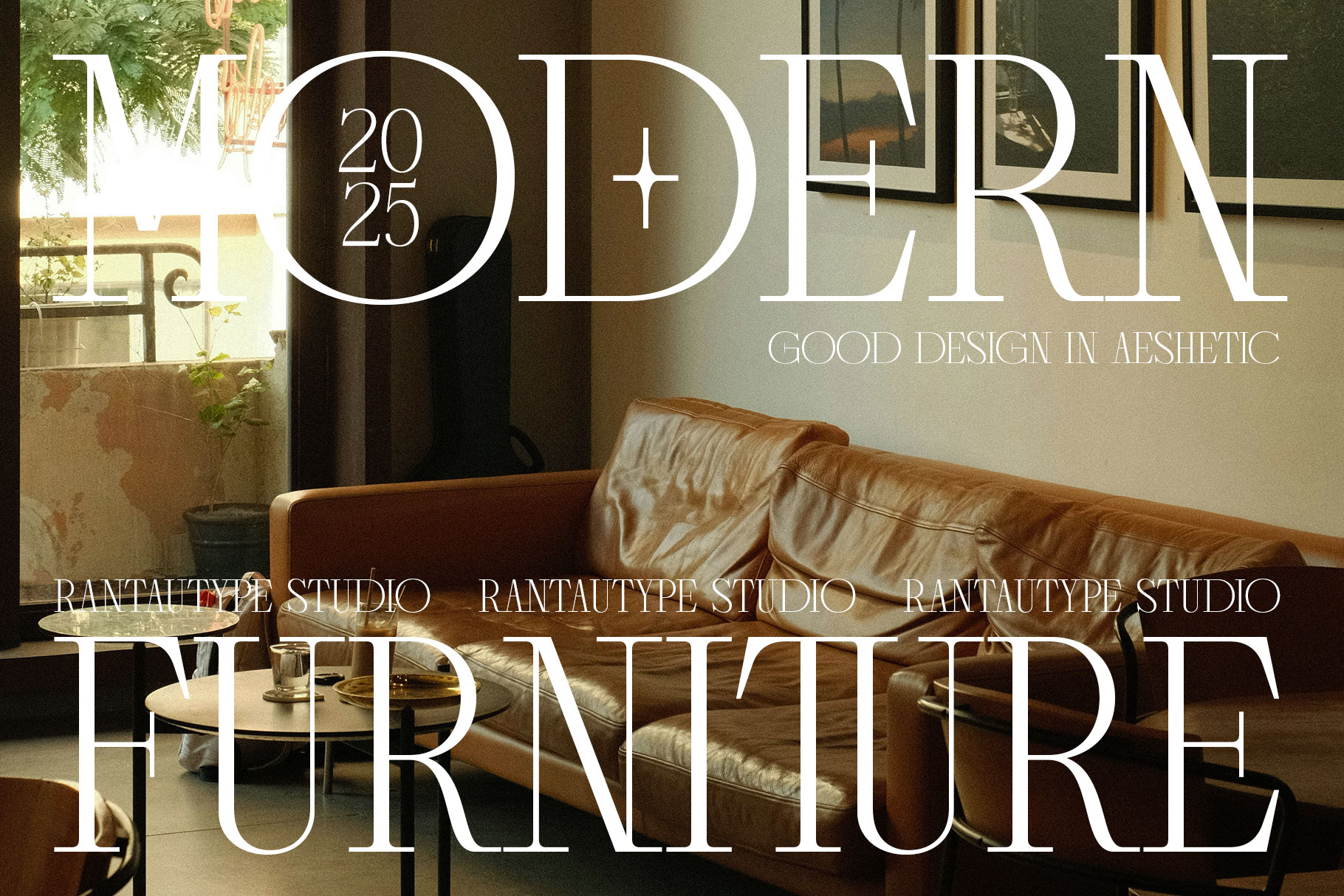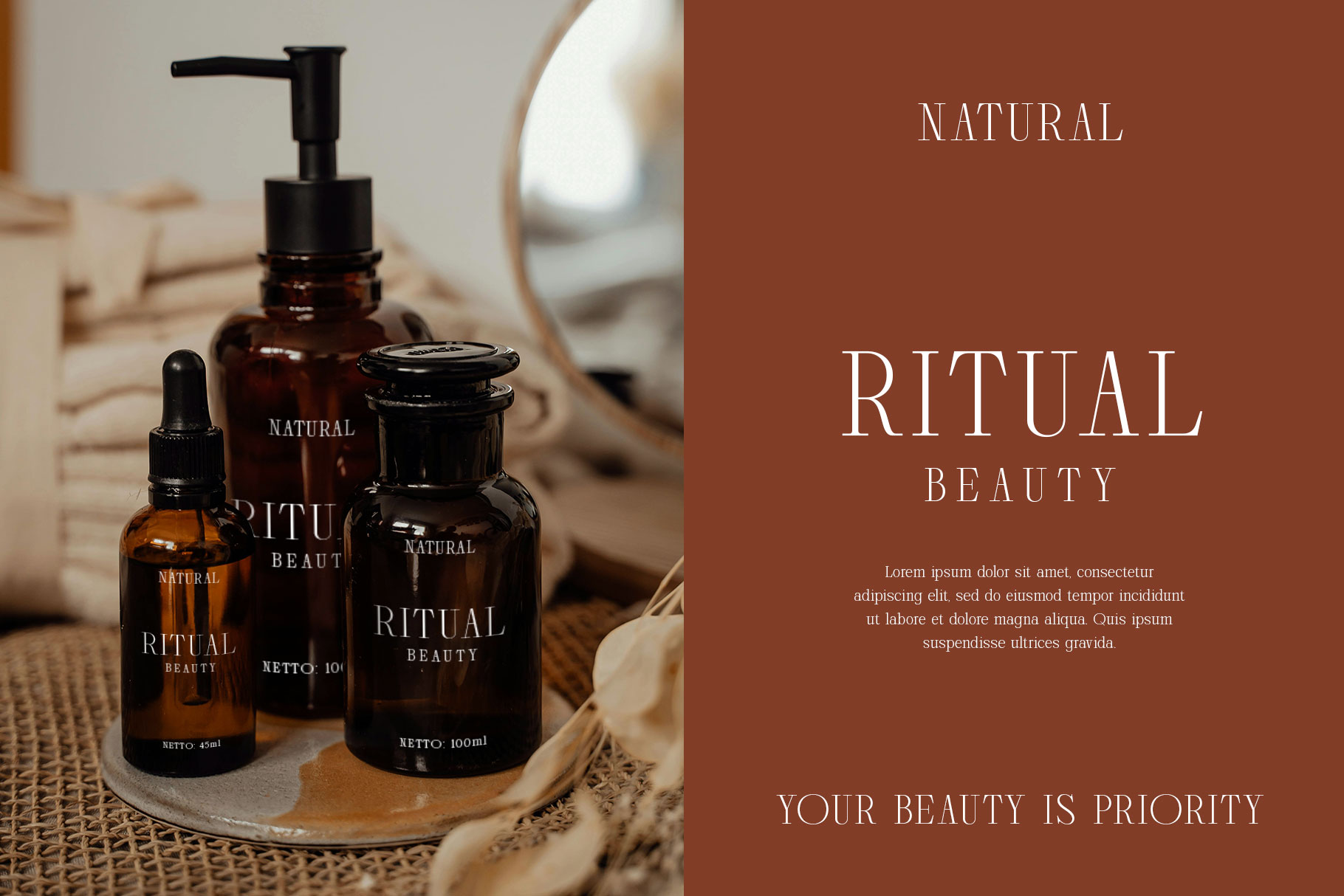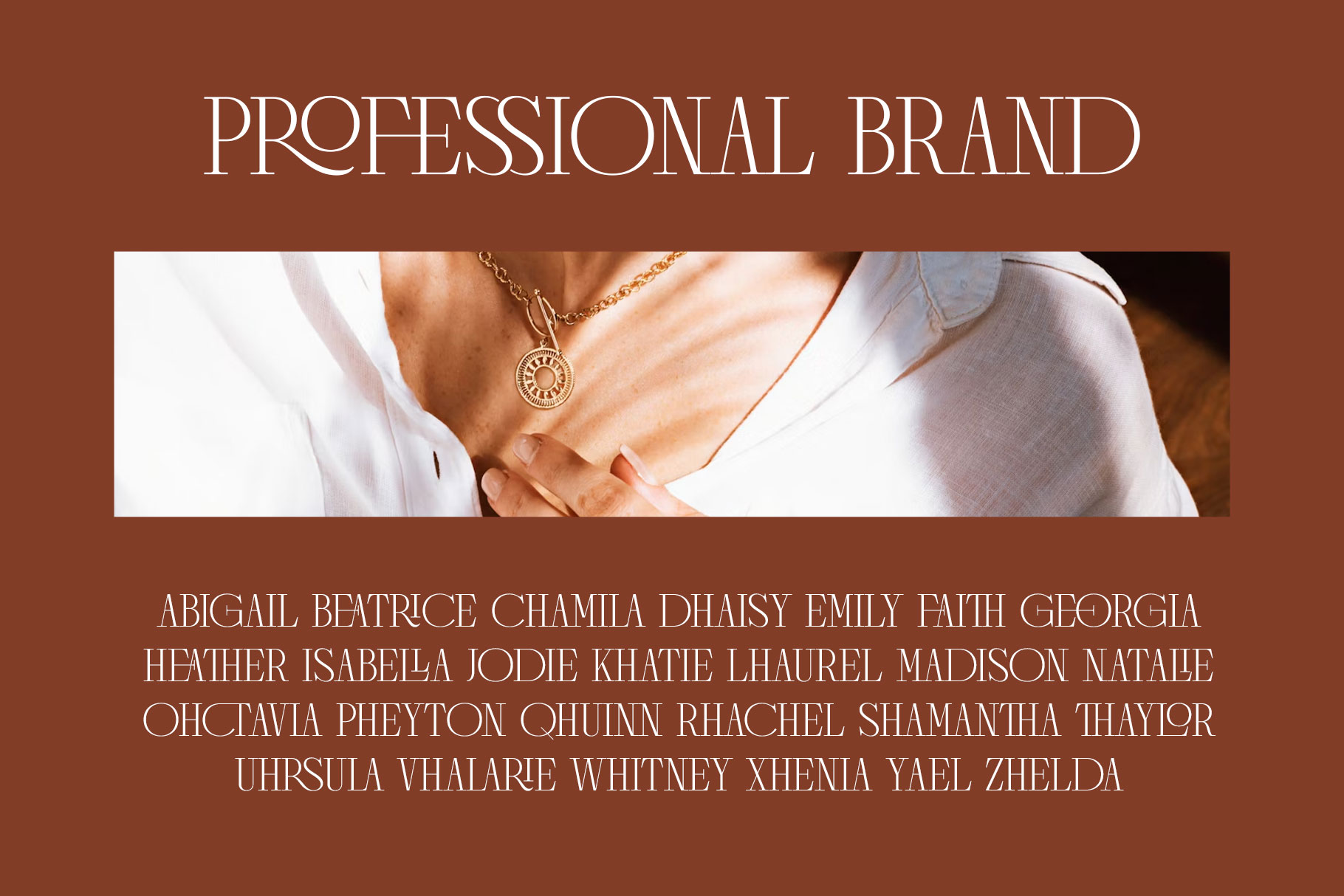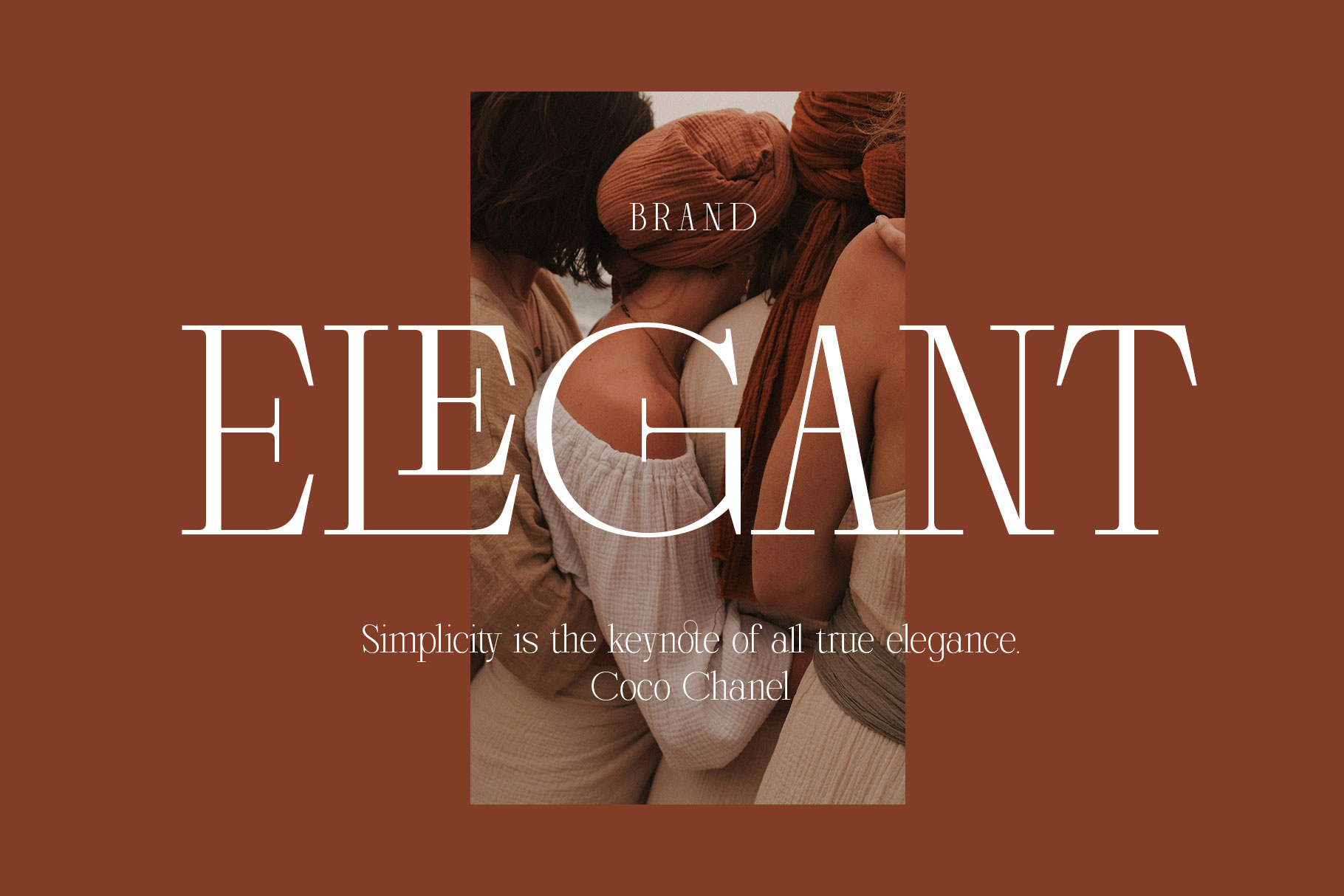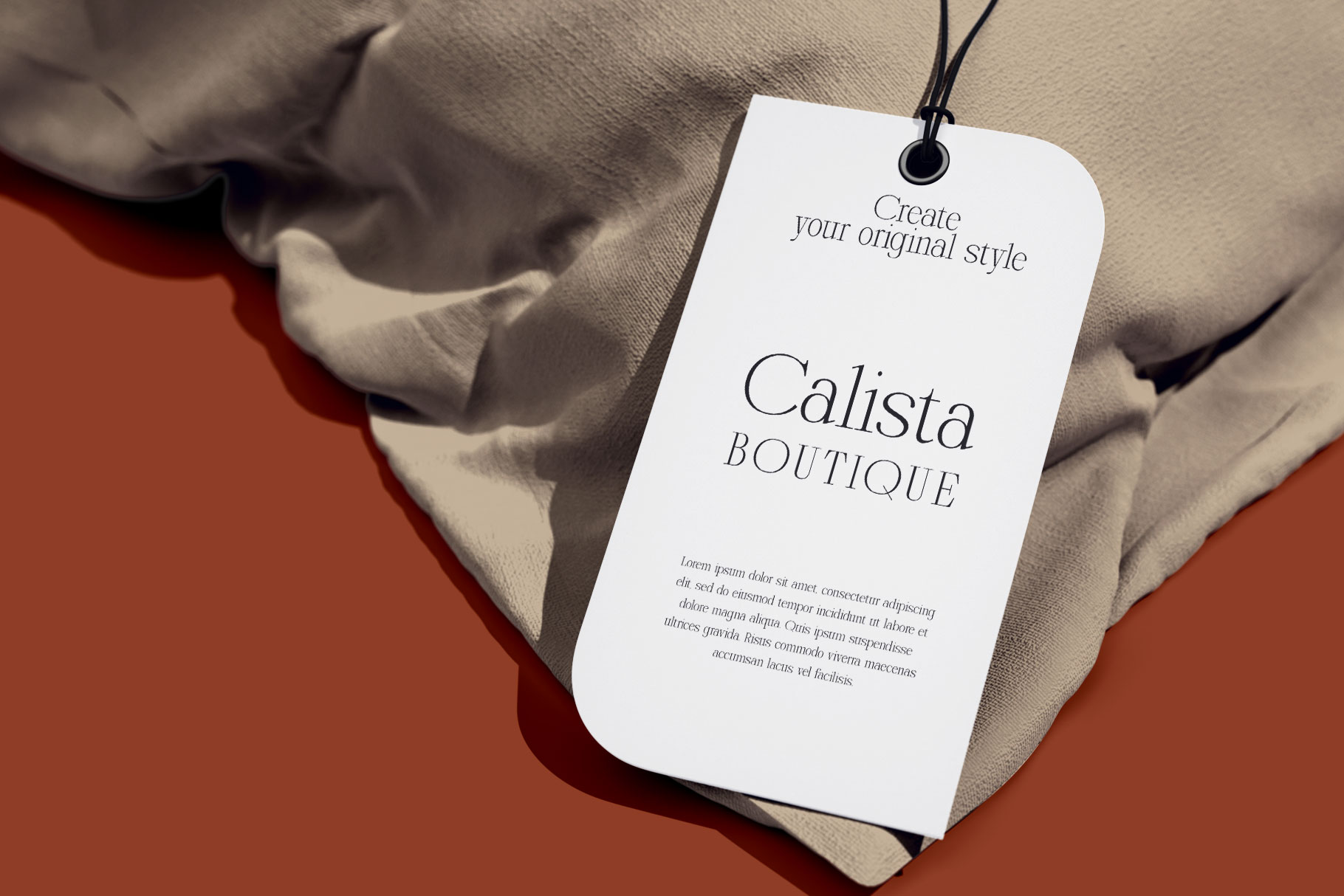
Ronace Classy Luxury Serif Font
Ronace is a classy and luxury serif font embodies elegance, sophistication, and a timeless appeal. Ronace come with minimalist but impactful details. Ronace is a perfectly choice for any creative endeavor, chic, lifestyle design such as logotype, advertisements, watermark on photography, stationery, branding project, display and magazine, invitation, corporate brand, product design, label, business project and many other project with luxury touch.